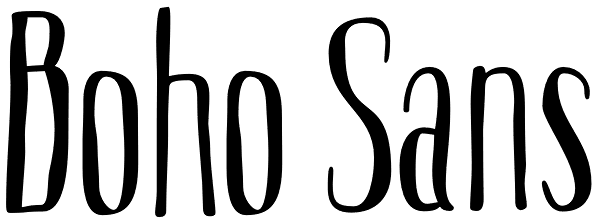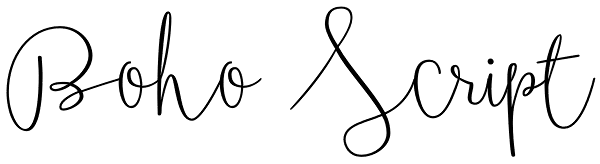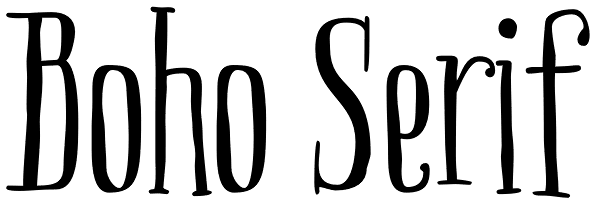
Boho
Boho is inspired by a bohemian girl who is a free soul and creative spirit. She is a city girl, but she loves spending a lot of time outdoors and being close to nature. She loves art and going to the antiques and organic food markets. She is a wild...